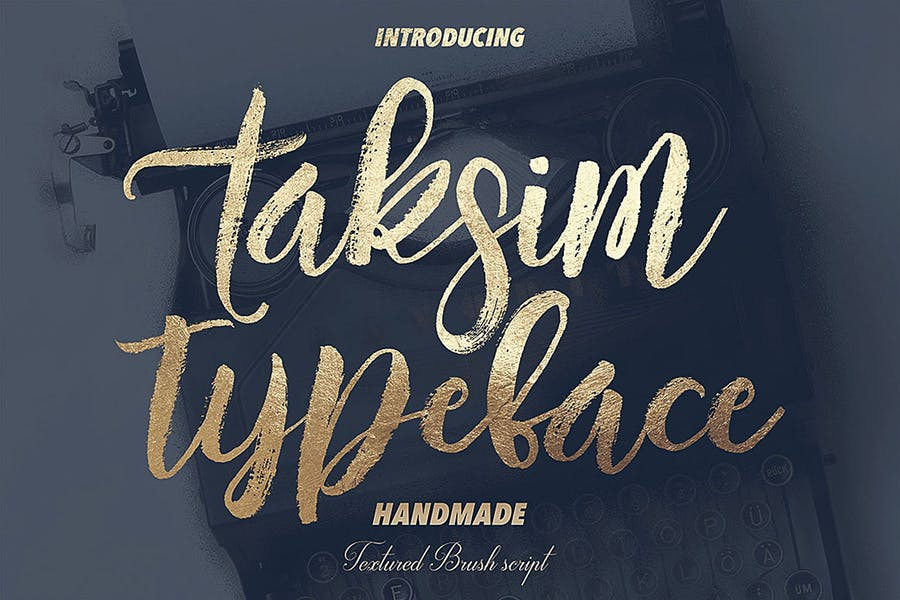
Taksim Brush Font
Taksim Brush Font is perfect for artistic poster design, creative agency branding, street art inspired graphics, urban fashion labels, cultural event materials, gallery exhibition signage, handmade craft packaging, artistic blog headers, creative workshop promotions, bohemian restaurant menus, independent music album covers, and expressive storytelling projects.
Taksim Brush Font is exciting because it captures the vibrant energy and artistic soul of urban creativity with bold brush-stroke letterforms that feel alive with spontaneous expression, perfectly embodying the dynamic spirit of cultural crossroads where tradition meets innovation and artistic passion flows freely through every stroke.
The Taksim Brush Font family includes expressive variations: Regular, Bold, Light, Rough texture, Smooth finish, and Splatter effects, providing designers with a complete artistic typography toolkit to create authentic compositions that celebrate the raw beauty of hand-painted urban art and creative expression.
The font's passionately crafted letterforms showcase the organic beauty and spontaneous energy of traditional brush painting while incorporating contemporary design principles that ensure optimal performance across artistic and commercial applications. Each character pulses with creative life and authentic artistic expression.
Taksim Brush Font excels in creating memorable brand experiences for businesses in arts, culture, and creative industries. Its expressive presence transforms ordinary communications into artistic statements that resonate deeply with audiences seeking authentic creativity, cultural connection, and genuine artistic expression in their visual experiences.
Professional designers treasure how Taksim Brush Font brings instant artistic credibility to creative projects without sacrificing readability or professional polish. The font's dynamic character and thoughtful design ensure it performs beautifully in both intimate artistic applications and large-scale cultural displays.
This remarkable typeface brings authentic artistic energy to creative ventures and culturally focused businesses. From independent galleries to creative agencies, Taksim Brush Font creates lasting impressions that communicate passion, authenticity, and the transformative power of art to bridge cultures and inspire human connection.